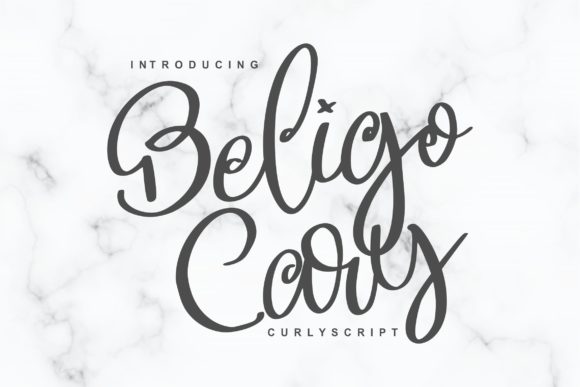
Dive into the world of Beligo Cary, a mesmerizing script font, and unleash the power of your creativity. Crafted by the talented Vunira, this font is a symphony of elegance, innovation, and splendor, designed to make your designs shine brighter than ever.
Beligo Cary's captivating dance of curly lines and enchanting swashes will transform your projects into masterpieces. Watch in awe as your words come alive, each letter flowing seamlessly into the next, creating a visual masterpiece that will leave your audience spellbound.
With Beligo Cary as your creative ally, you'll unlock a world of endless possibilities. Express your individuality, ignite your passion, and let your imagination run wild. Whether you're designing logos, crafting invitations, creating social media posts, or embarking on any other creative adventure, Beligo Cary will elevate your work to new heights.
Don't settle for ordinary fonts that blend into the background. Choose Beligo Cary and embark on a journey of artistic expression unlike any other. Experience the thrill of seeing your words dance across the page, captivating your audience with their beauty and grace.
Beligo Cary is more than just a font; it's an invitation to let your creativity soar. Embrace its magical touch and witness the transformation of your designs into stunning works of art. Let Beligo Cary be your muse, your creative spark, and your passport to a world of limitless possibilities.